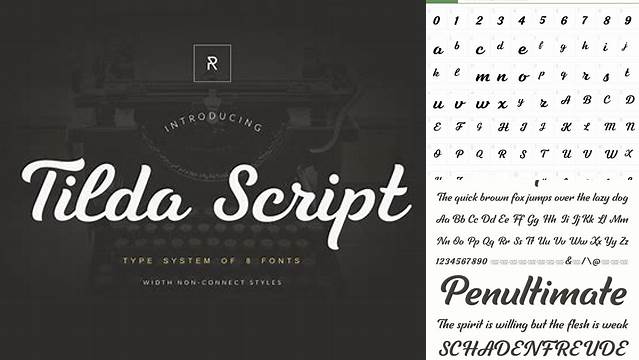
What Makes Tilda Script Semibold Font So Special?
Firstly, why is the Tilda Script Semibold font so popular, anyway? Well, it's got a unique blend of characteristics that make it stand out. Think of it as the Goldilocks of fonts – not too flashy, not too plain, but just right! It's a script font, meaning it mimics handwriting, giving your designs a personal and elegant touch. The "semibold" part tells you that it's a bit thicker than a regular weight, offering better readability, especially when used in larger sizes or on screens. It's like the difference between a regular pen and a felt-tip marker – one’s a little understated, and the other one pops!
One of the main reasons why Tilda Script Semibold is a favorite is its versatility. Whether you’re designing a website, creating invitations, crafting social media graphics, or working on a logo, this font can adapt. Its smooth, flowing lines add a touch of sophistication without being overly formal. It can be easily paired with other fonts, offering endless design possibilities. Imagine using it for headlines to give your content a captivating look, or for a signature on a design to give a more personalized touch.
Also, its readability is excellent. Because of the semibold weight, it performs very well in various contexts, from print to digital media. The font is designed to be visually appealing at a glance and easy on the eyes. Its legibility ensures your message is communicated effectively, regardless of the medium. In a world where the visual experience is crucial, this font provides an impressive mix of aesthetics and practicality. This feature makes Tilda Script Semibold an excellent choice for projects where clarity and style are equally important, ensuring that your designs not only look good but also effectively convey your intended message.
What makes it even better is that the Tilda Script Semibold is part of a larger font family. You might also find different weights and styles, which gives you flexibility when designing. For example, if you need a lighter version for body text or a bolder one for attention-grabbing headlines, this font family has you covered. This range allows you to maintain a consistent design aesthetic throughout your project while providing the necessary variety to make it both beautiful and efficient. The ability to mix and match various font styles is a boon to designers who desire to create a cohesive visual identity.